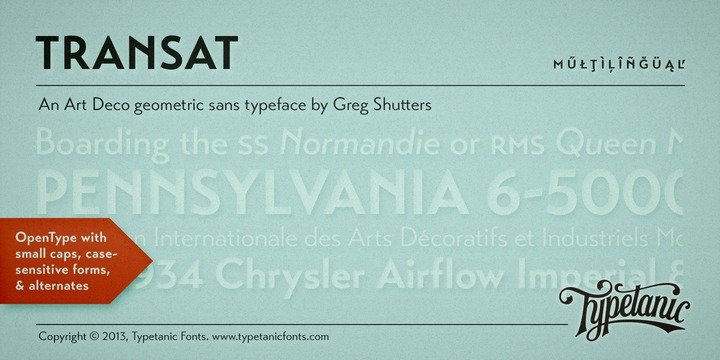
Transat
Transat, the strikingly beautiful geometric sans serif typeface was introduced way back in 1930s. The caps of the font are inspired by Art Deco signage that was discovered in the “Gare Maritime” ocean liner terminals. The forename of the typeface “Transat” is an acronym for “Compagnie Générale Transatlantique,” the corporation that manoeuvred stately ocean liners … Read more